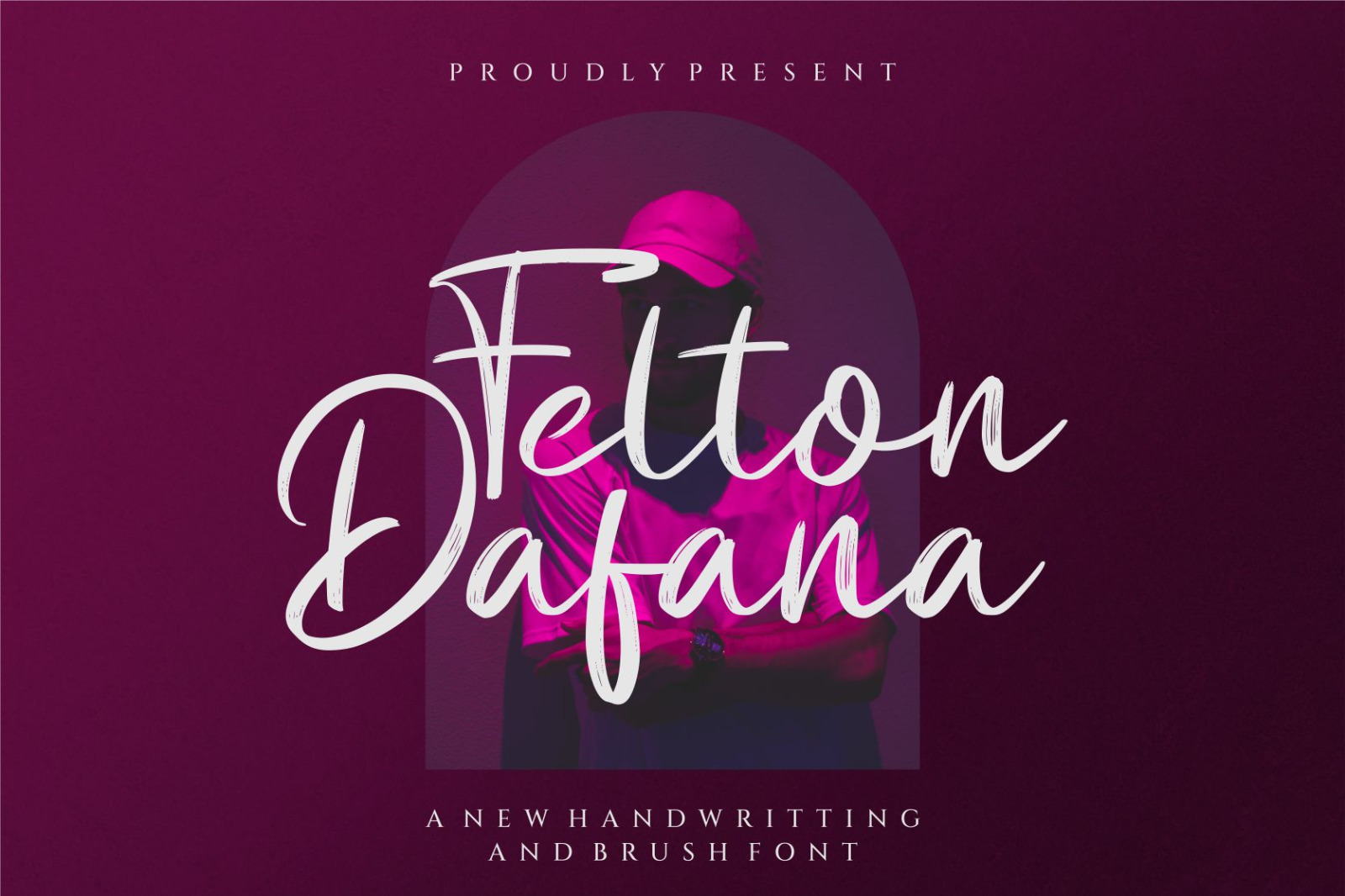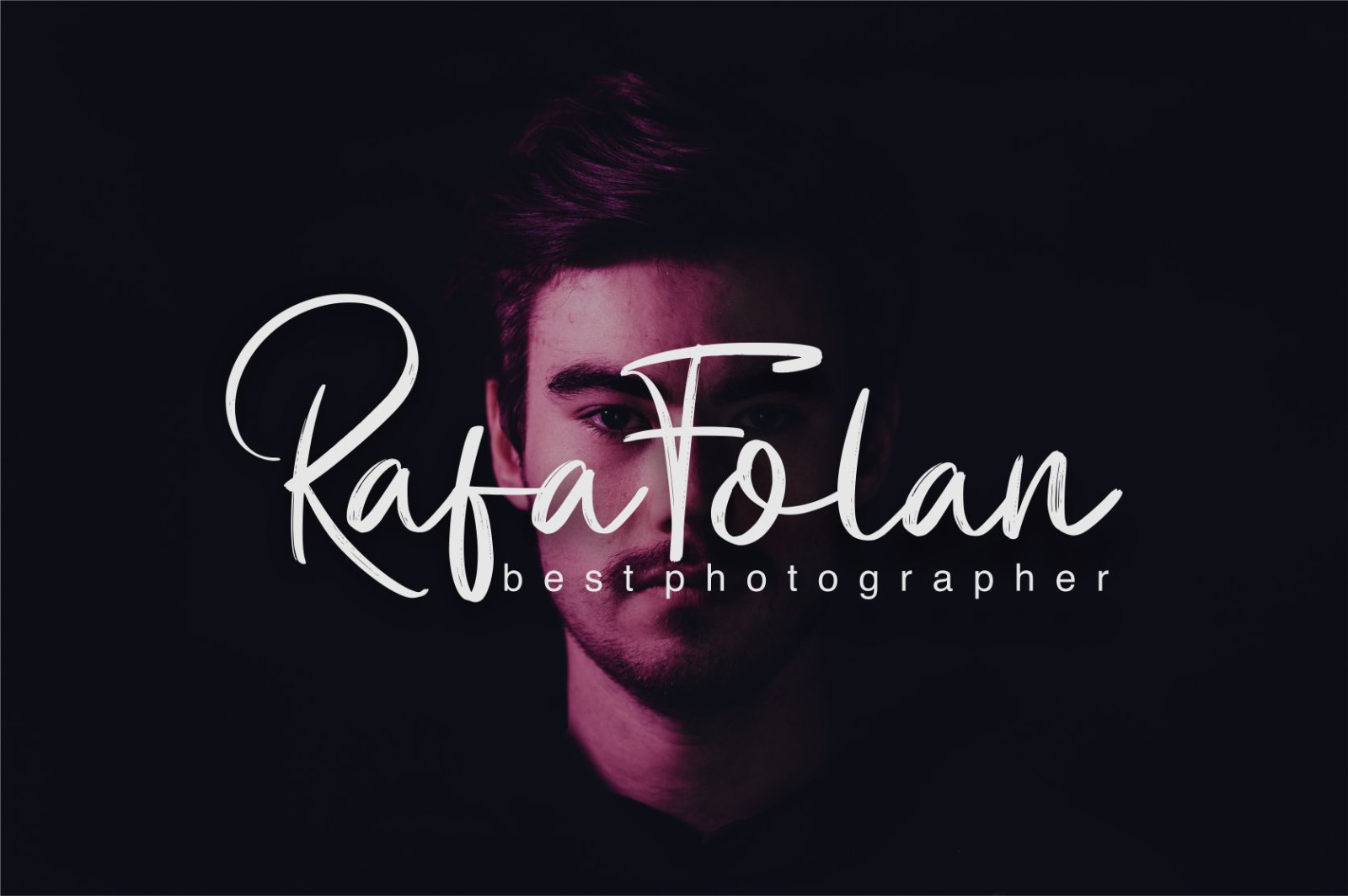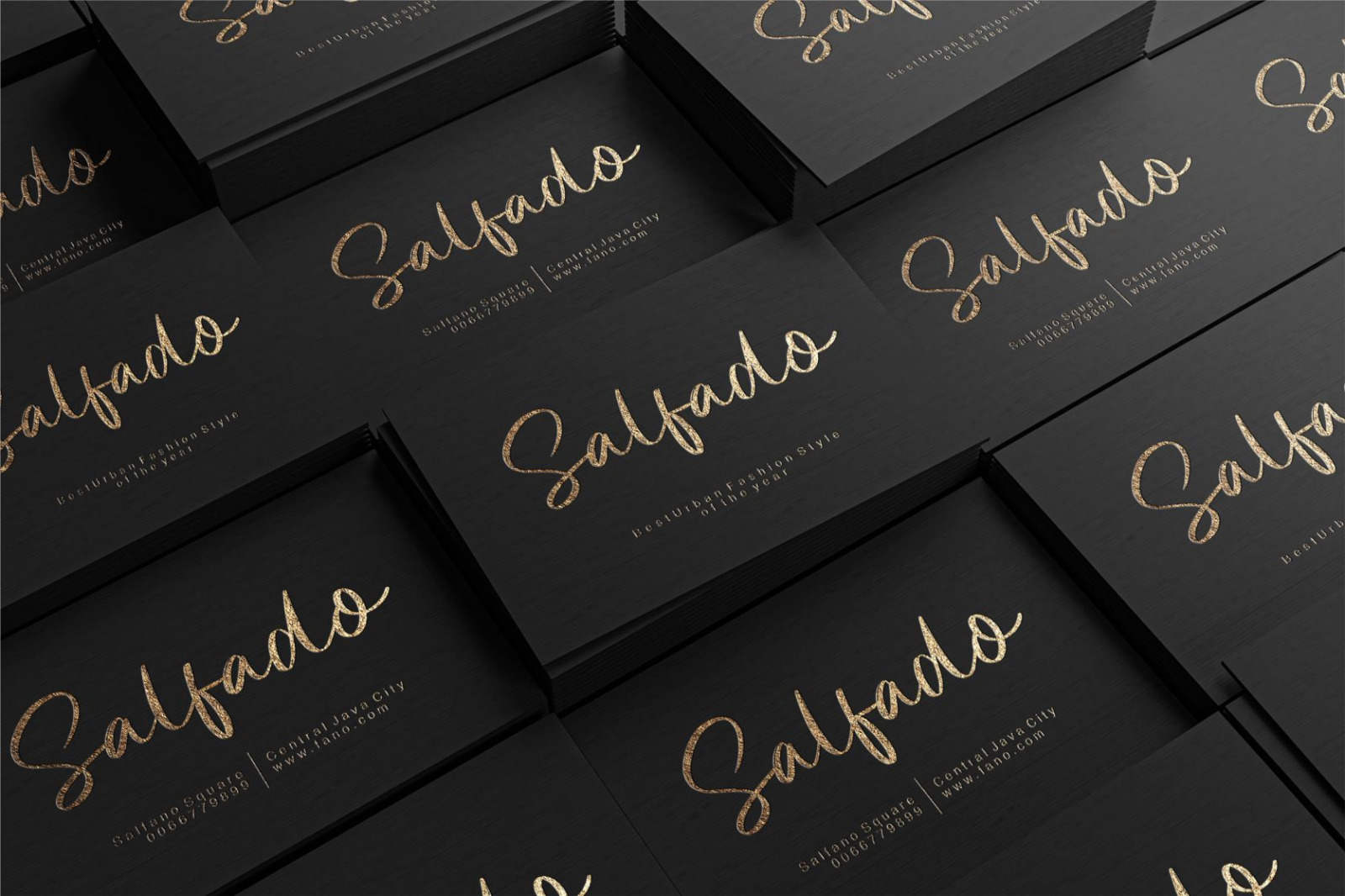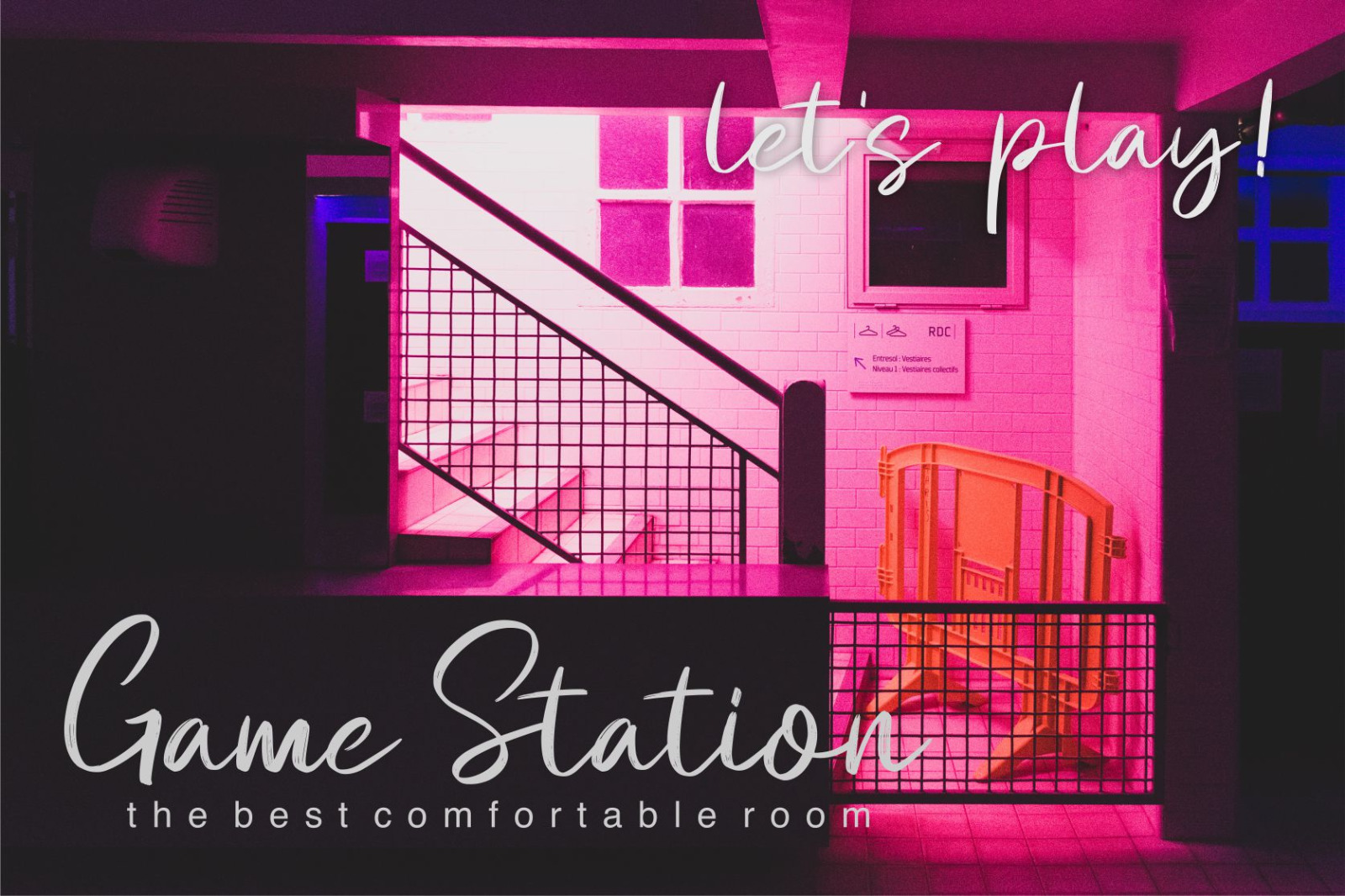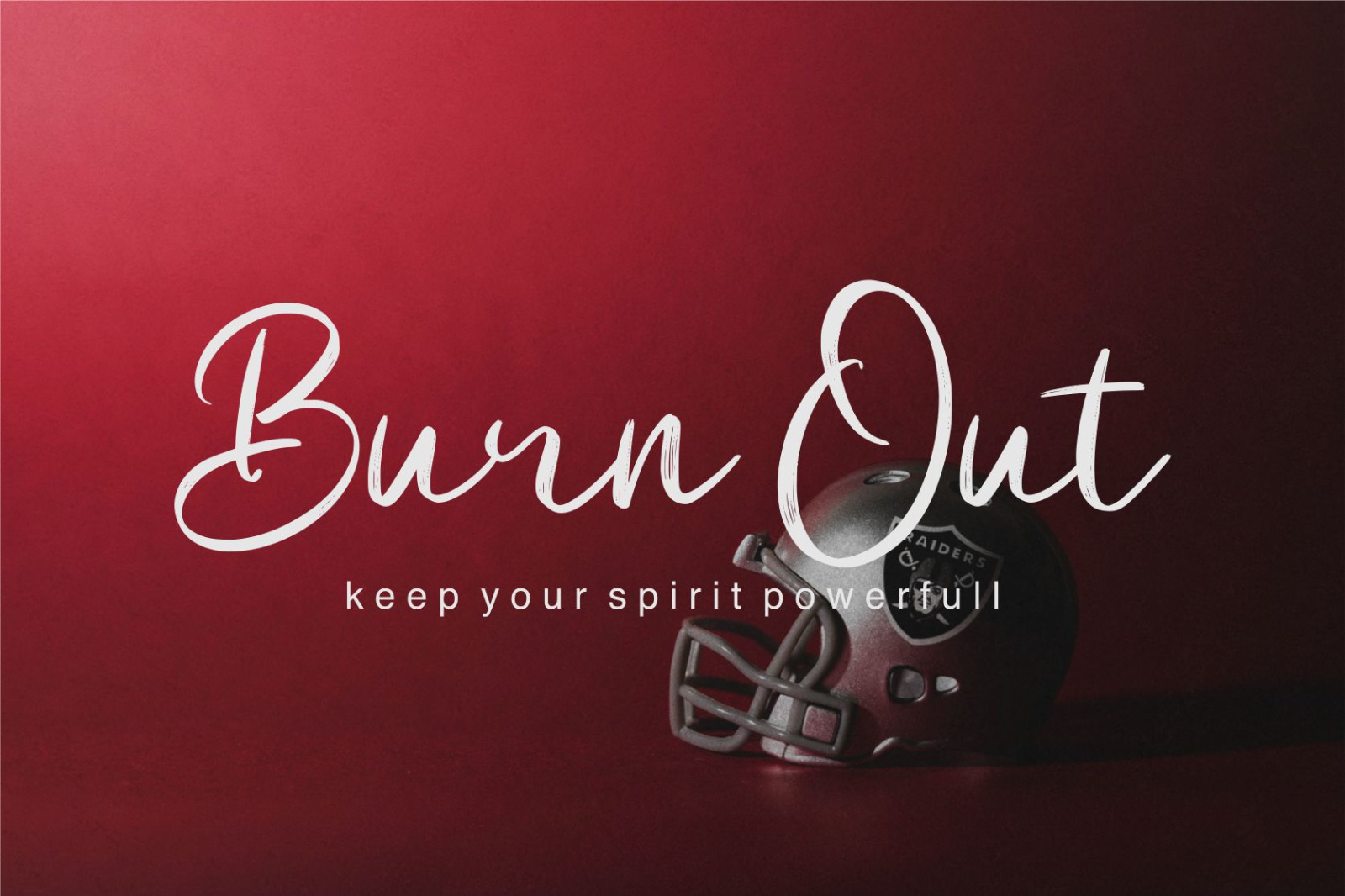
Felton Dafana Brush Signature Font
Felton dafana is an interesting brush-style handwritten font. Extremely flowing and well-rounded, this font is a great choice for logotypes, shirt designs, typography posters, quotes, and anything else that needs an elegant, calligraphic look!